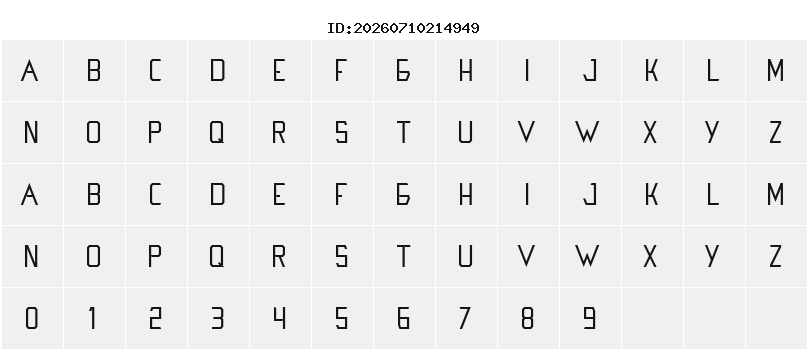
• Designer: Alex Ian Dale
Hanoi.ttf is a modern, elegant sans-serif font designed for ultimate readability and visual harmony. Perfect for branding, headlines, web design, and print materials.